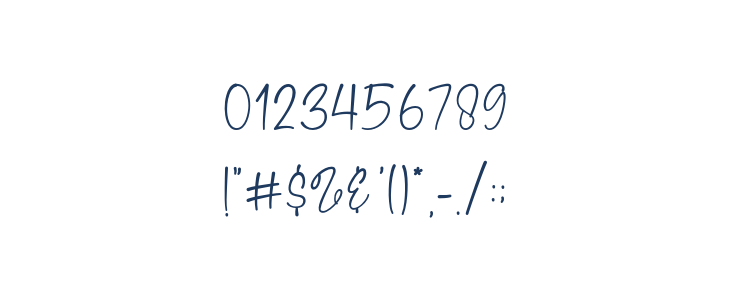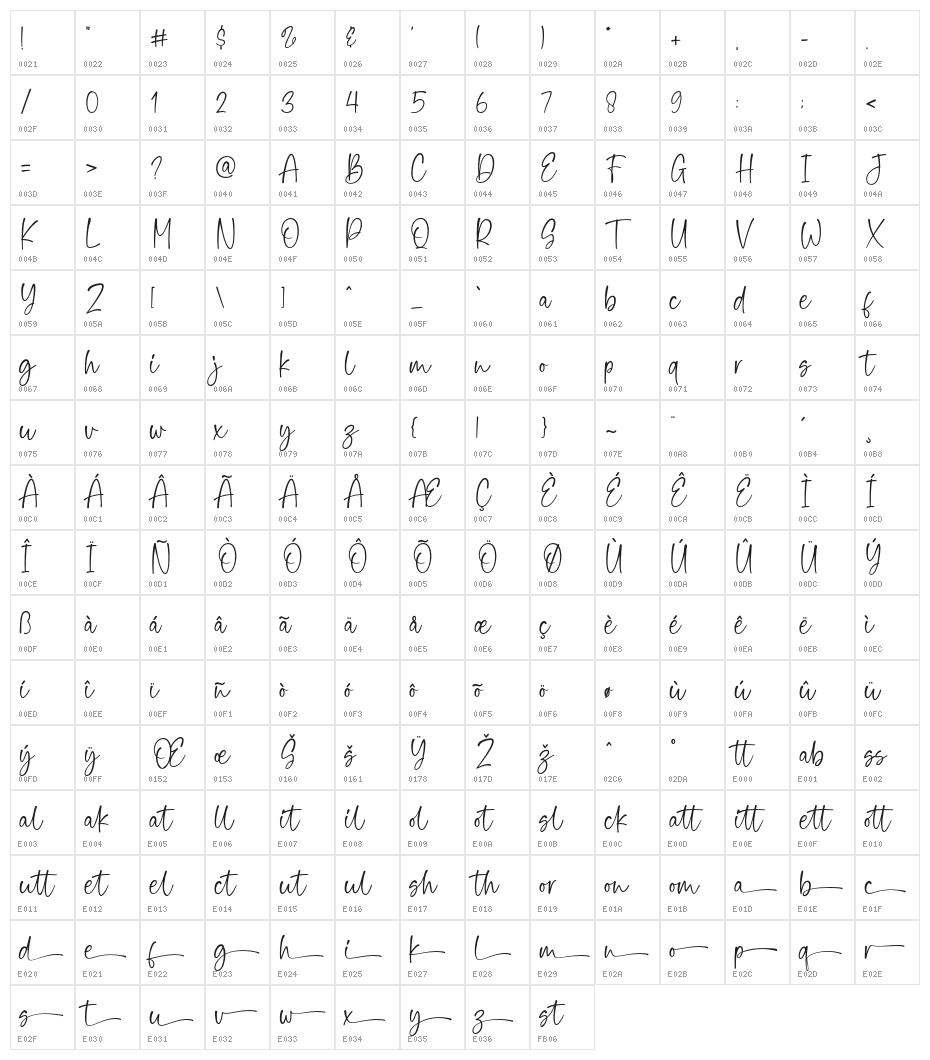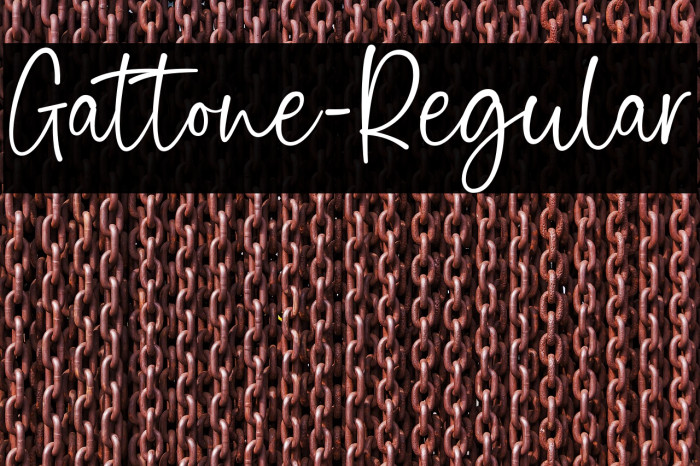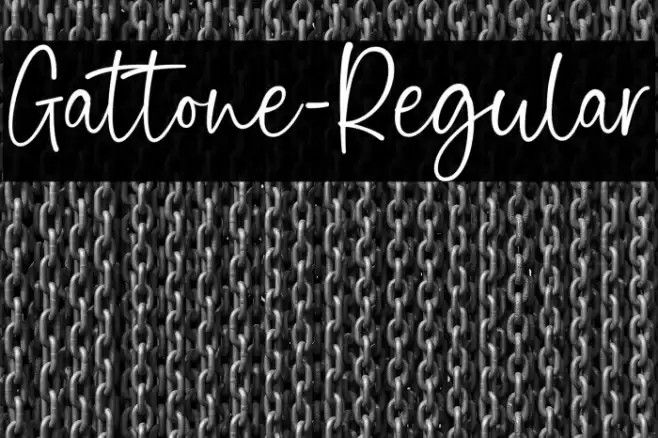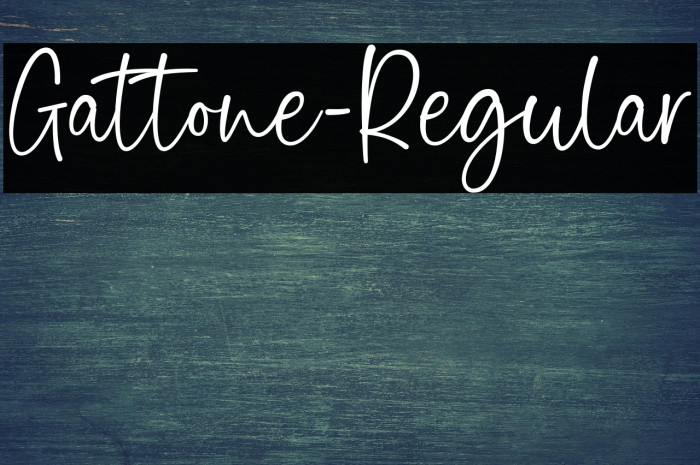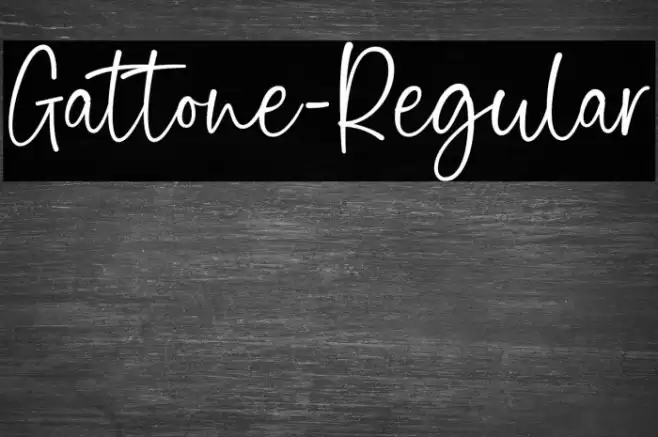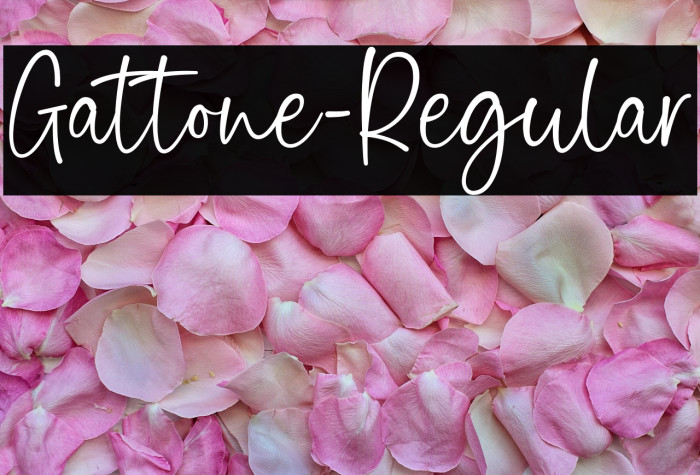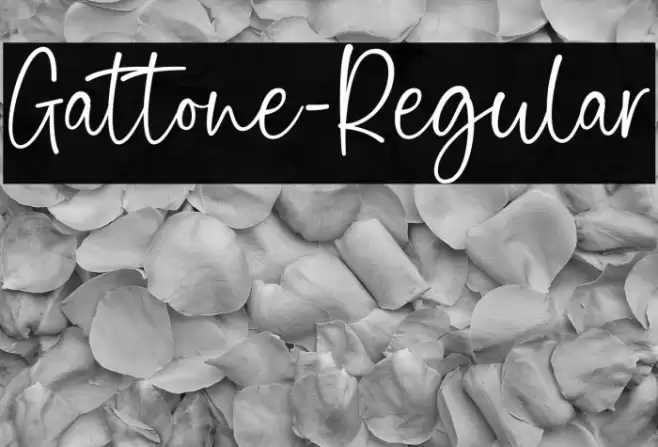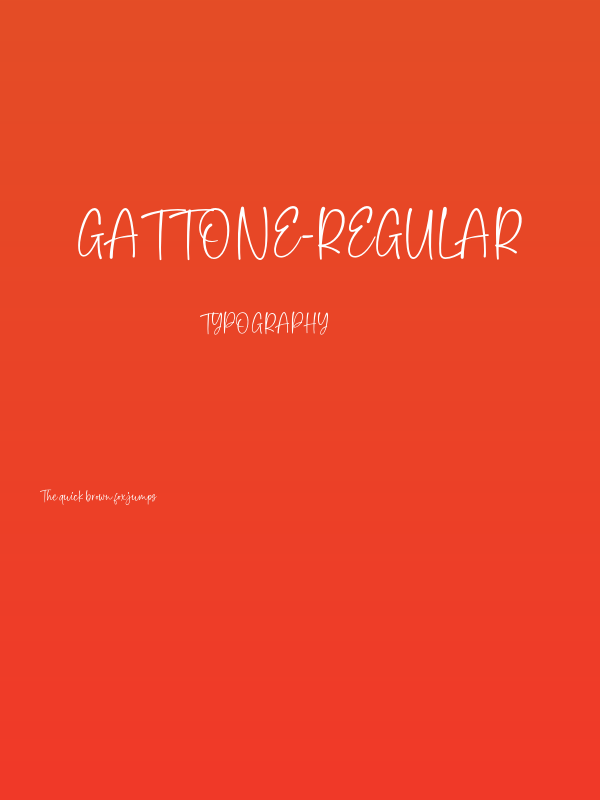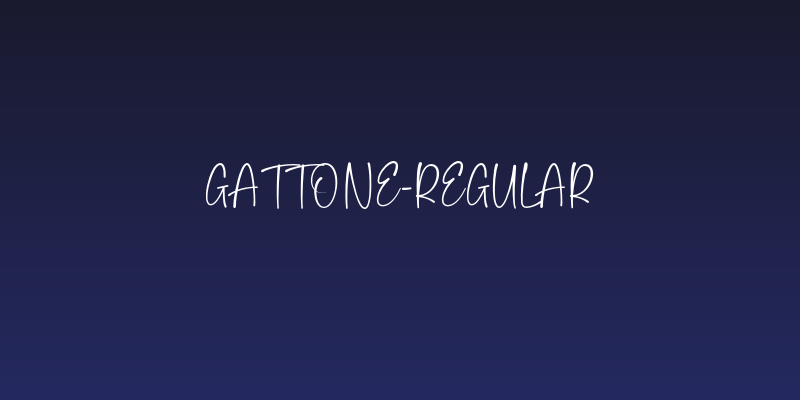
Gattone-Regular Font
Gattone-Regular Description
This font features a playful and casual handwritten style, characterized by its fluid and natural strokes. The uppercase letters are tall and slightly narrow, giving a sense of elegance and sophistication. The lowercase letters maintain a consistent flow, with some letters featuring unique loops and curves that add personality. The numbers are clear and legible, matching the overall style of the alphabet. Special characters are thoughtfully designed to blend seamlessly with the letters and numbers. This font's overall appearance is both approachable and stylish, making it suitable for a variety of creative projects.
| Use Case | Logos, Invitations, Social Media Graphics |
| Proposed Projects | Ideal for greeting cards, invitations, personal branding, and creative social media graphics. |